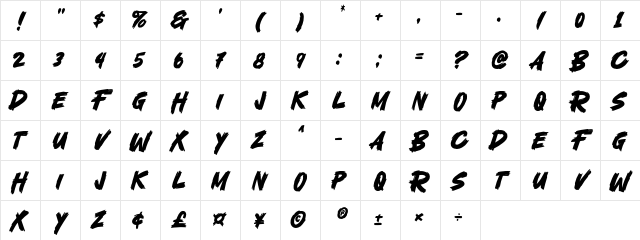
Fatal Fighter Regular
Design Context for Fatal Fighter
Fatal Fighter is a composed and adaptable typeface that performs quietly and consistently across a wide range of design contexts.